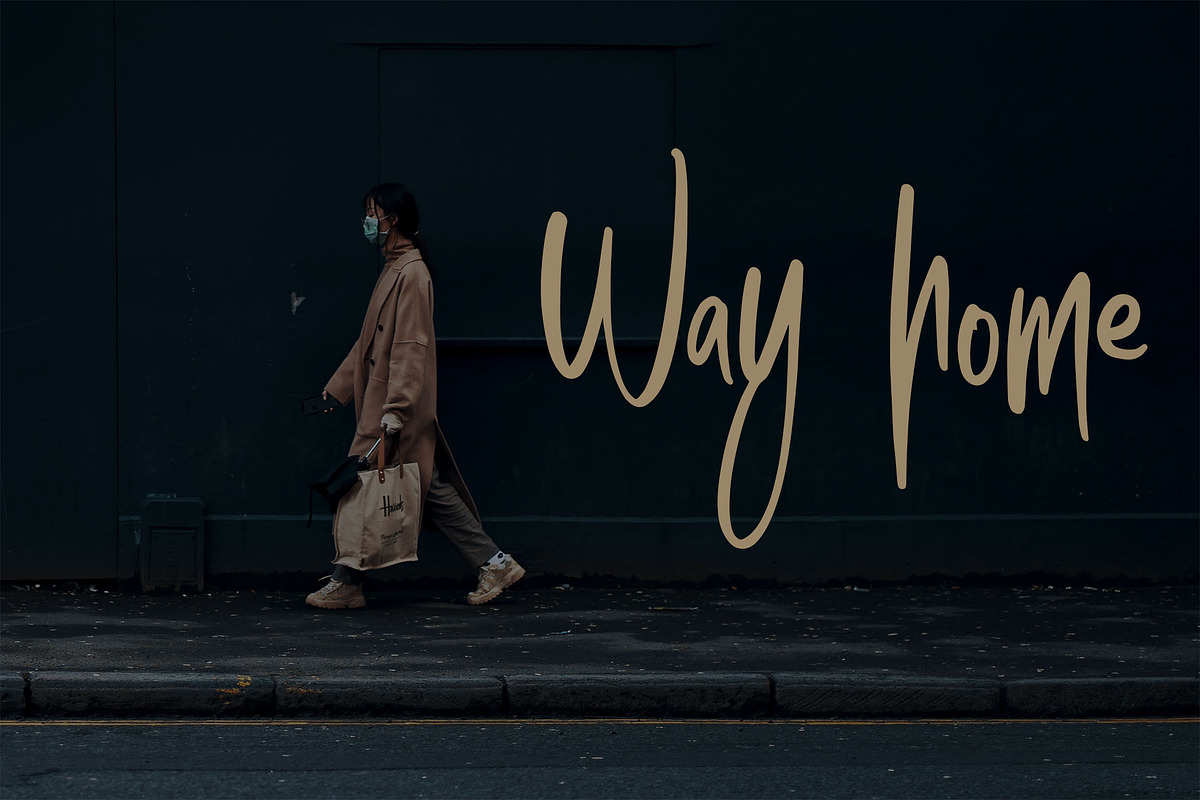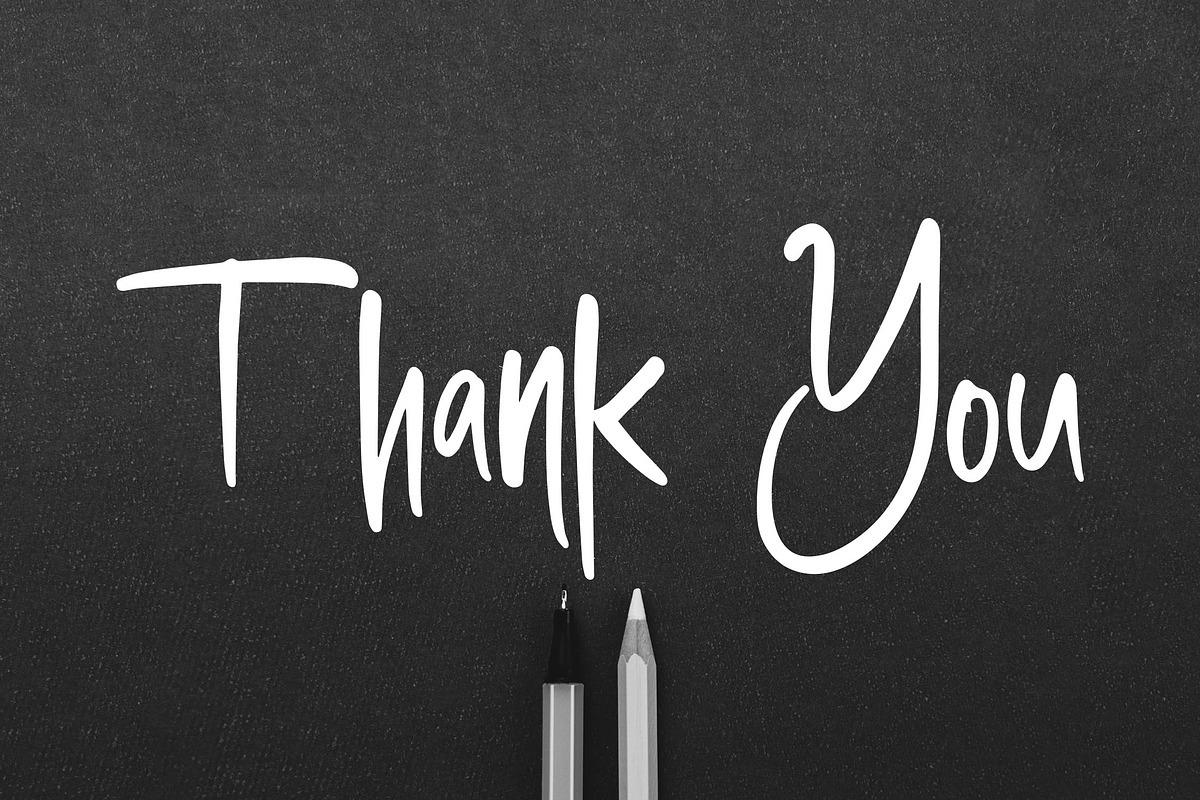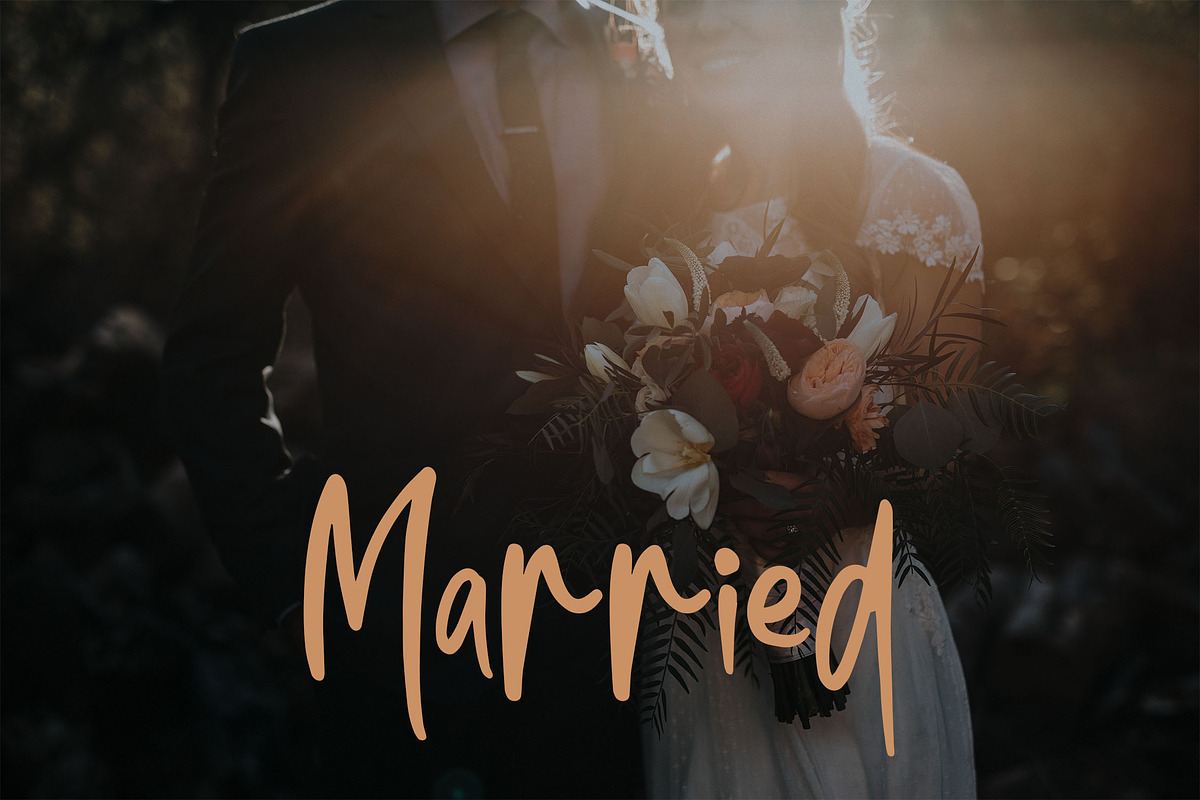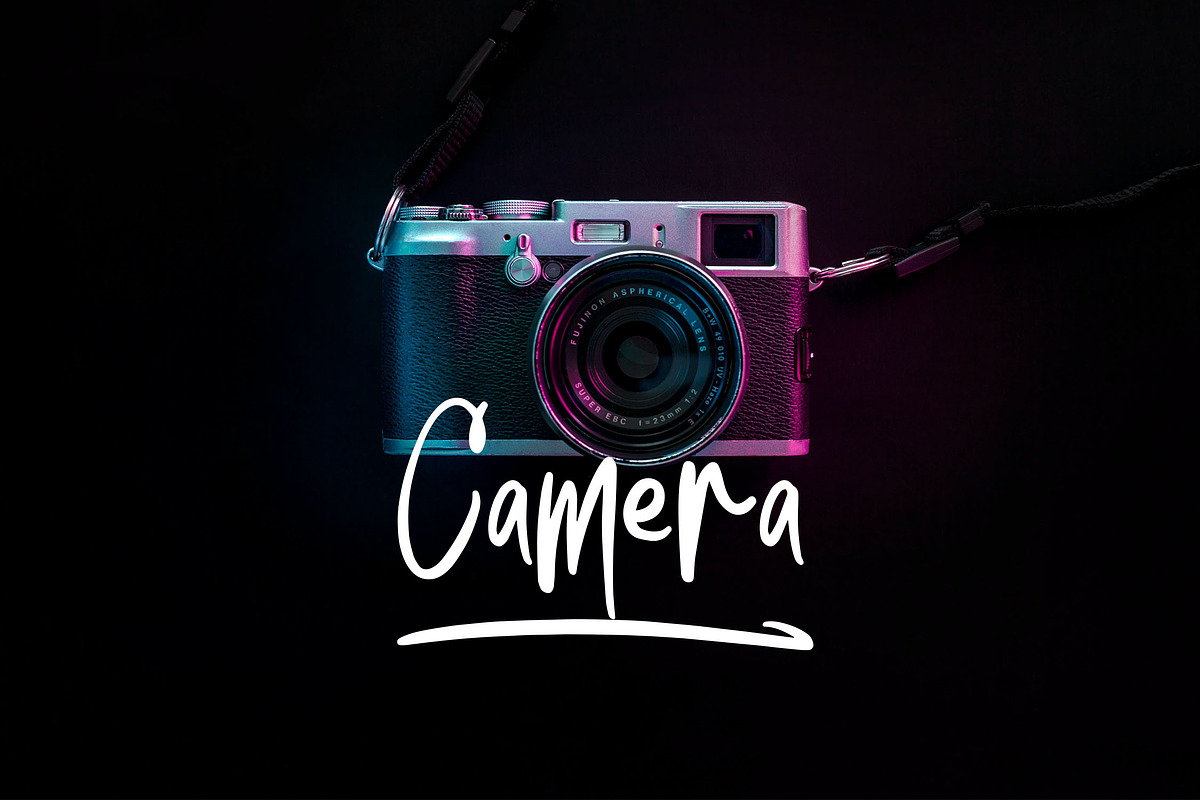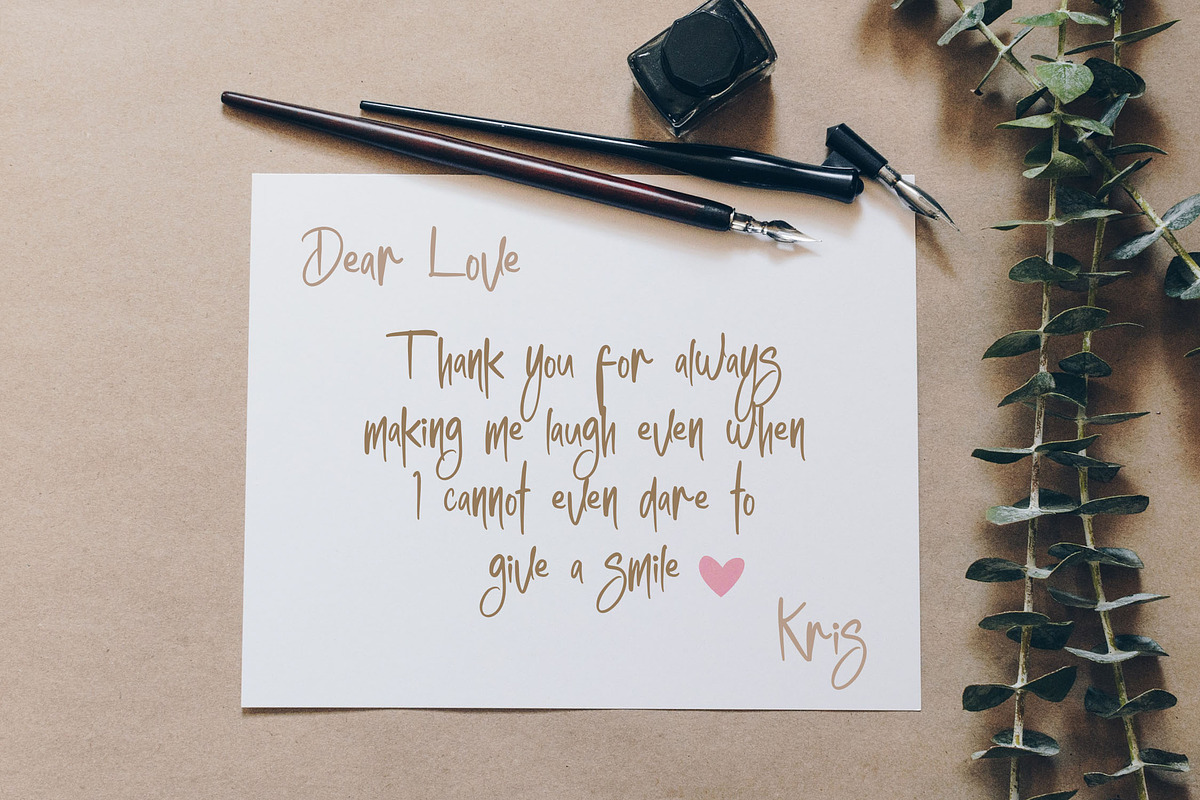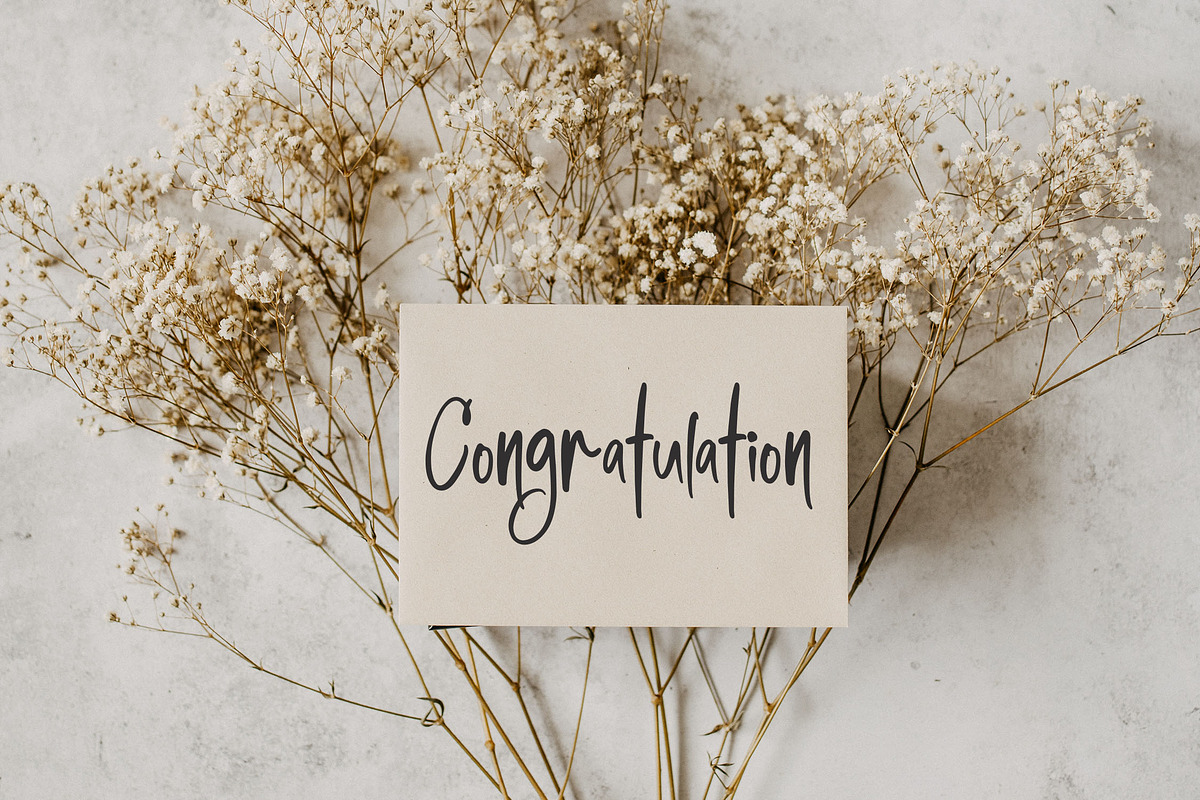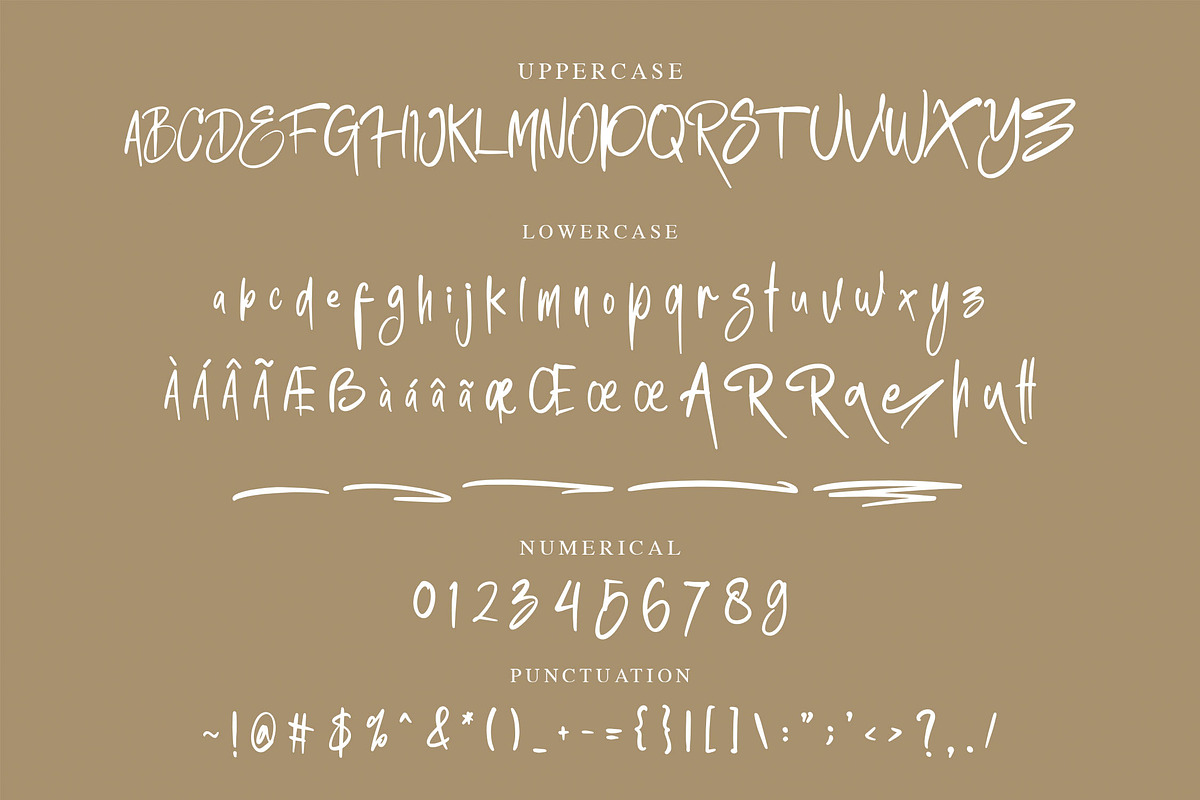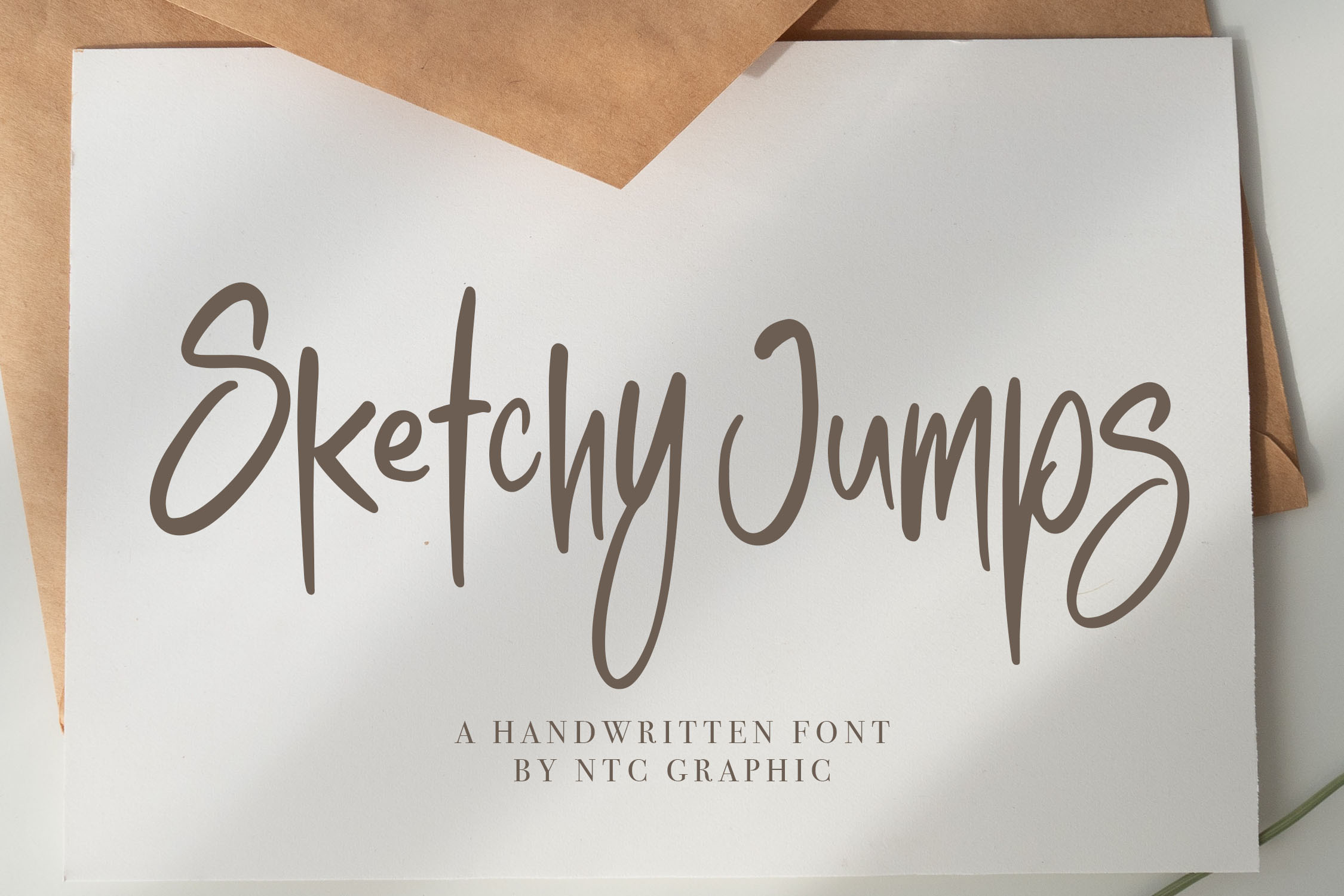
Sketchy Jumps - Handwritten Font
Sketchy Jumps is a beautiful handwritten font with vintage feminine style. Is a font style that is made with handwritten scratches shapes font characters are very beautiful. Can be applied to support the graphic appearance of the product to be more attractive and unique. This font is very nice for designing magazine previews and covers design, logo designs, shirt designs, and other graphic needs.
- Stylistic Alternate